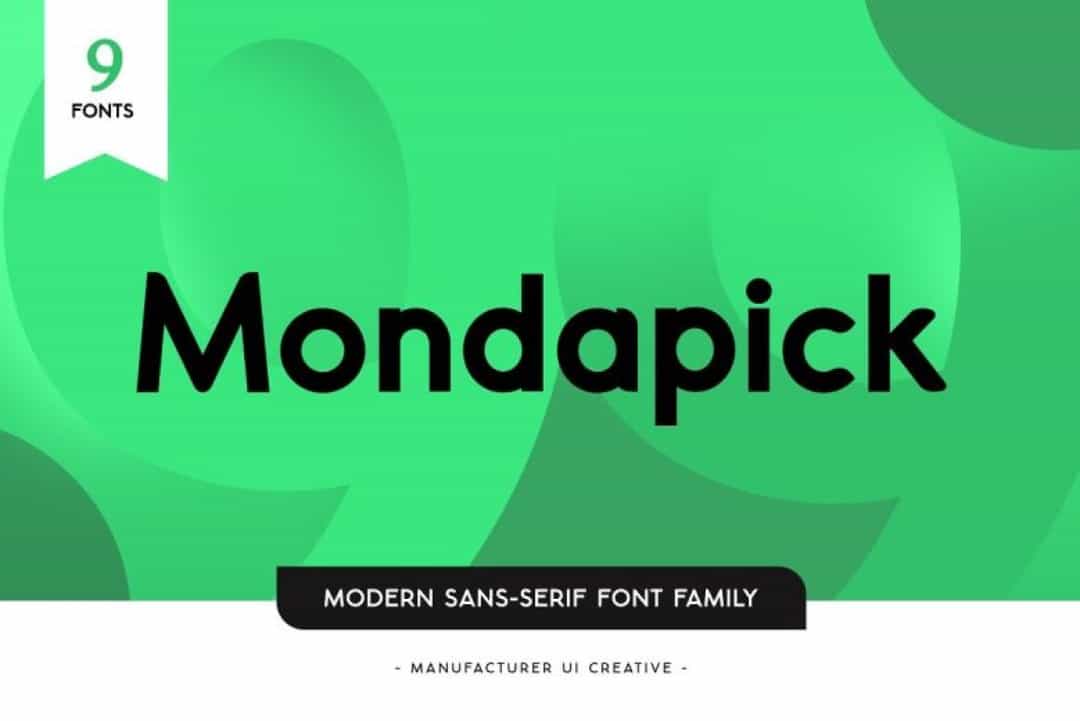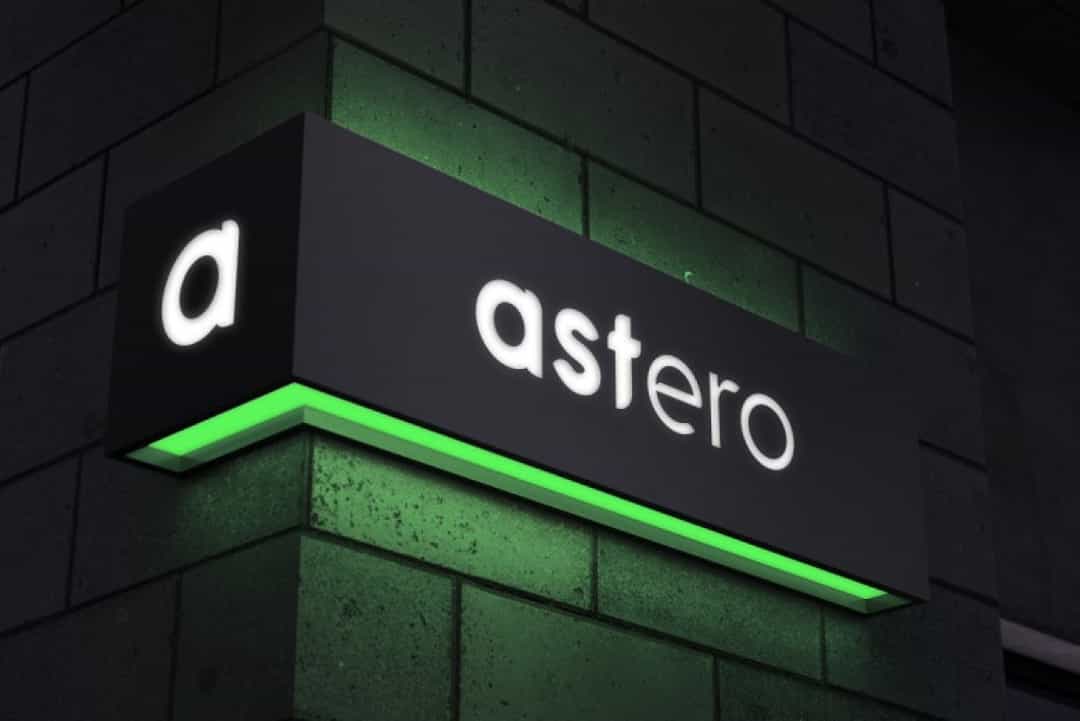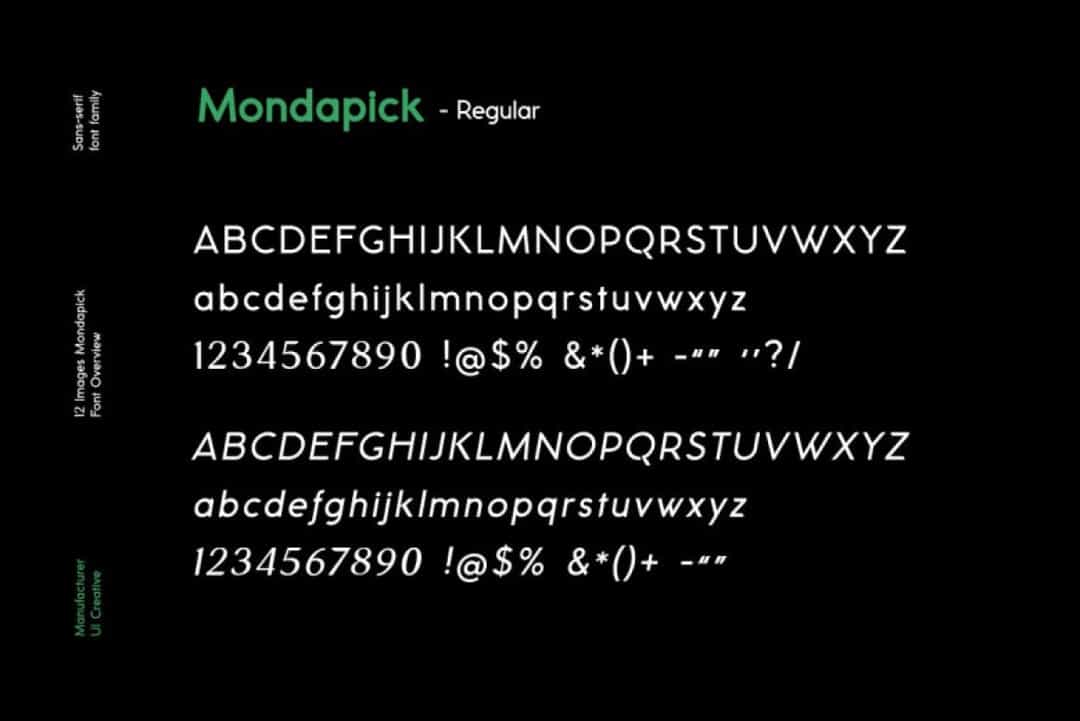
Mondapick is an elegant sans-serif typeface that embodies sophistication and modernism, ideal for various uses including logo design, stationery, signature wedding invites, typography quotes on book covers or magazine covers, website headers, footers, packaging designs, clothing branding designs etc.